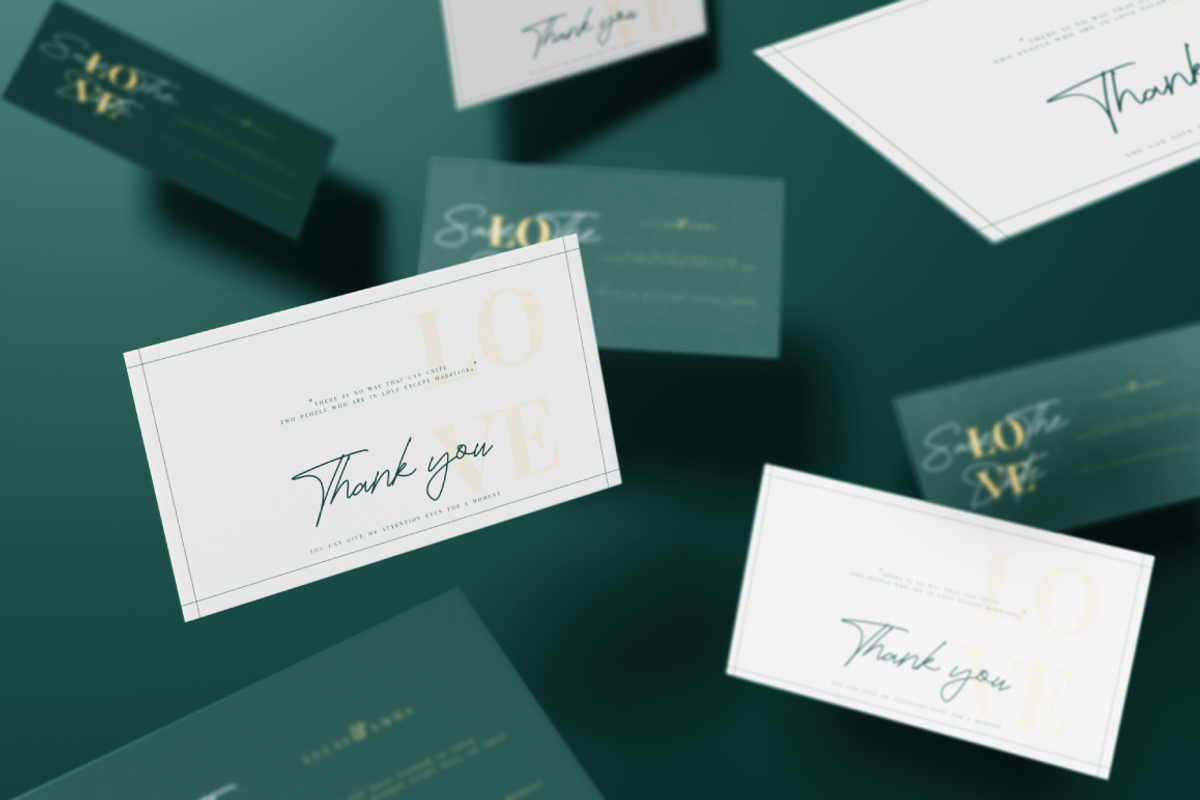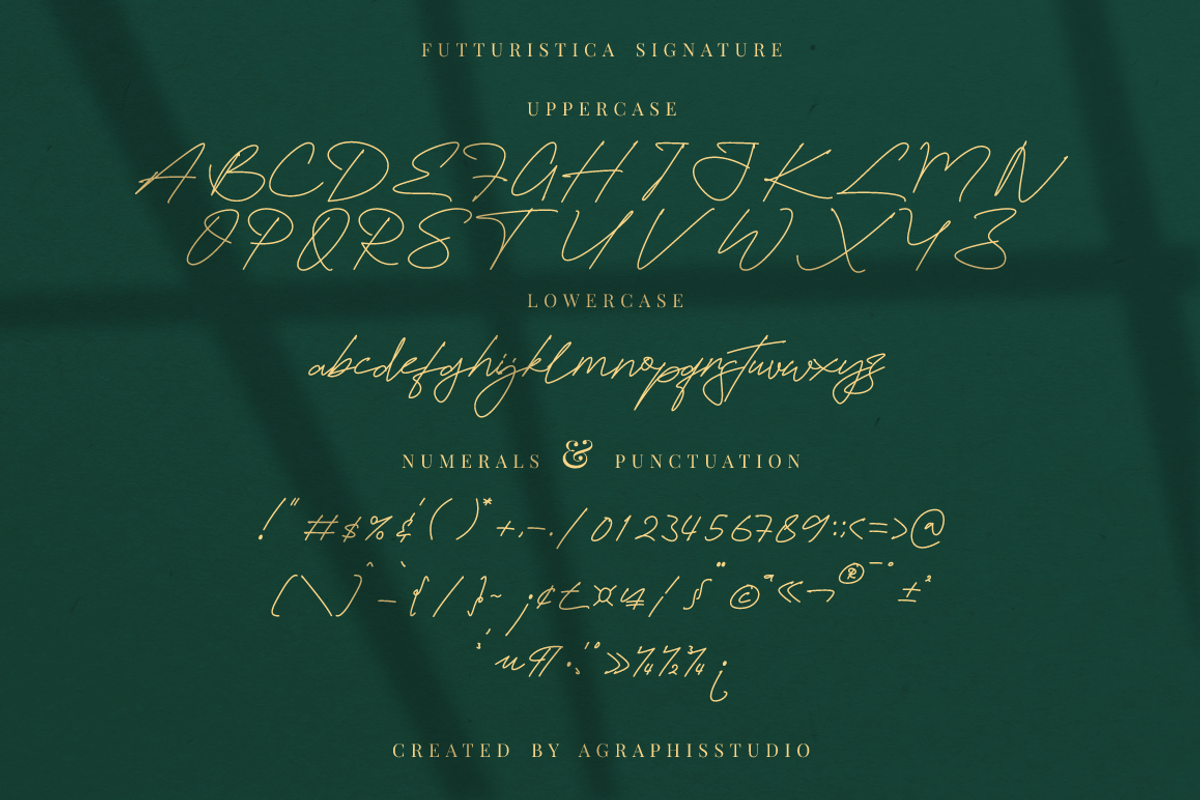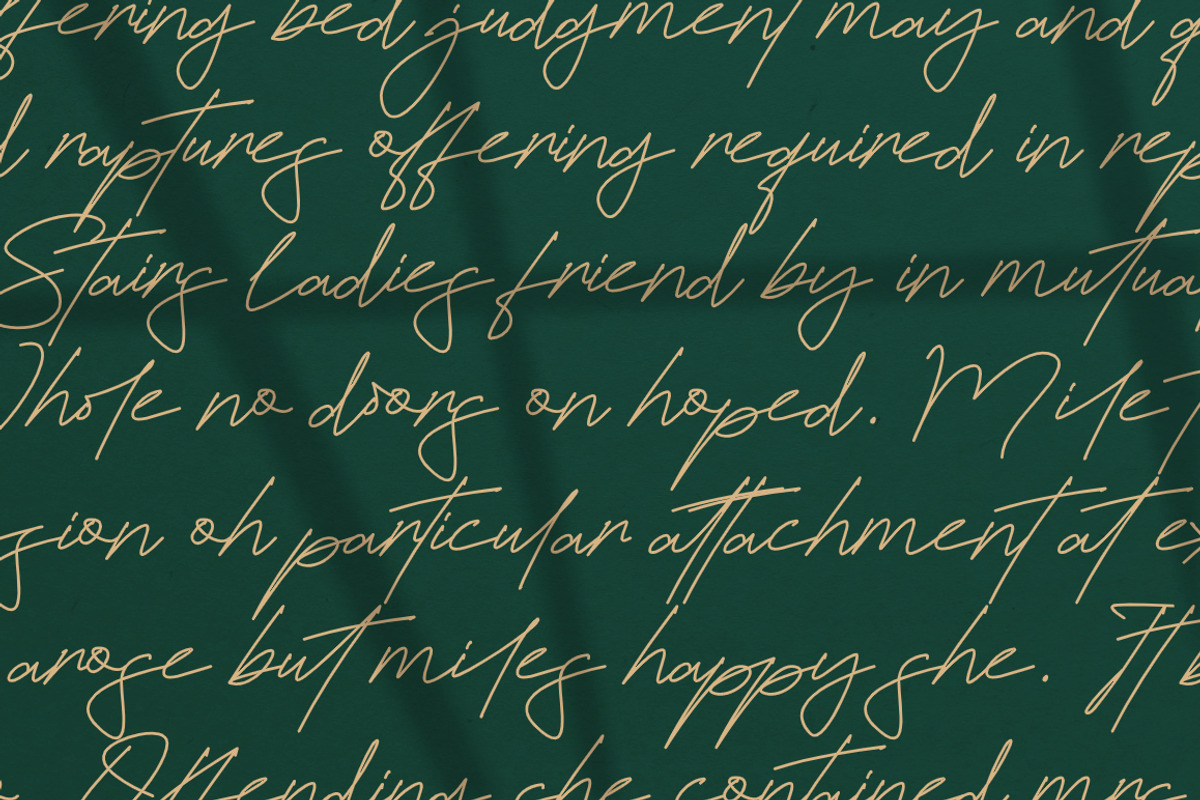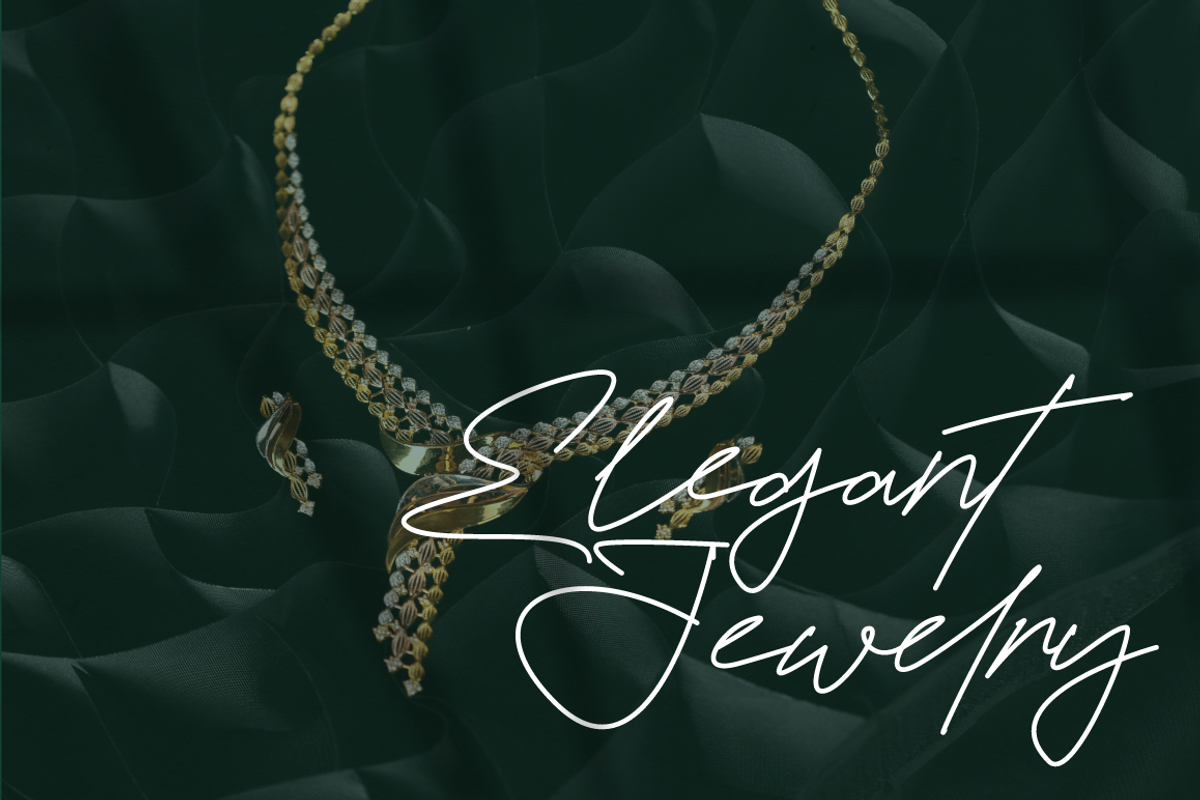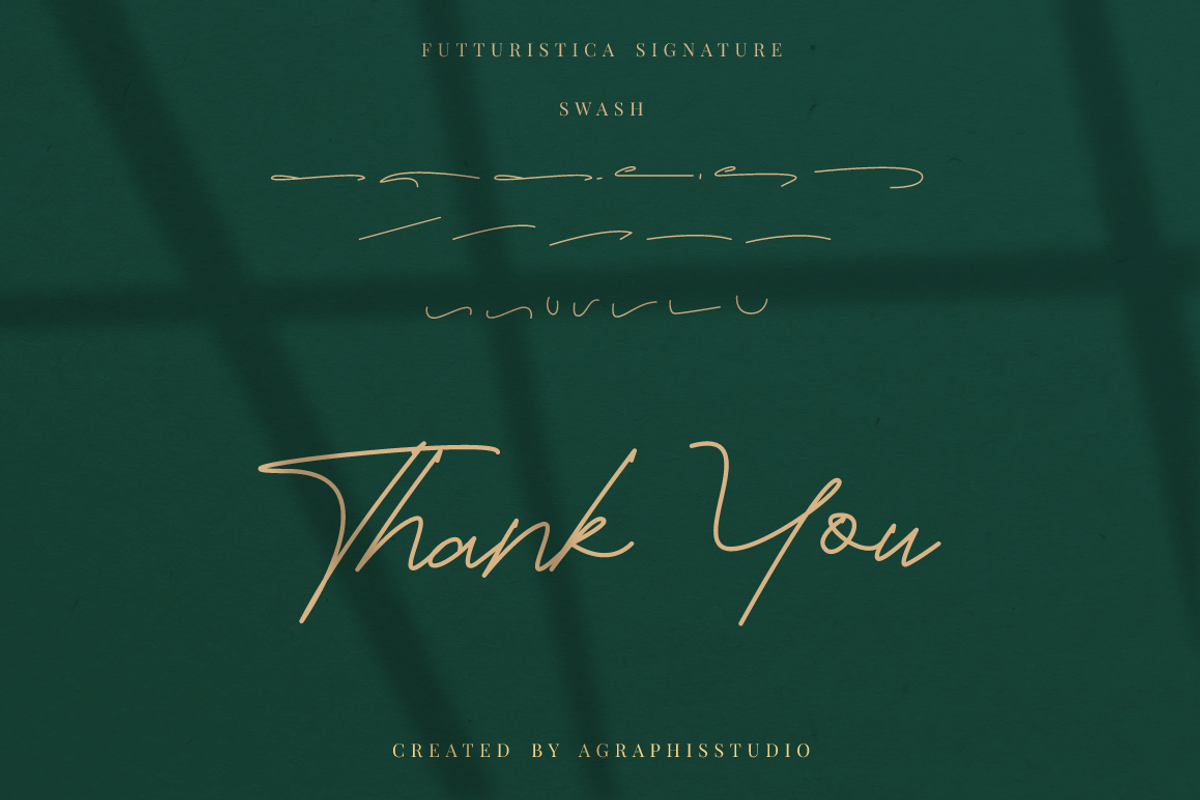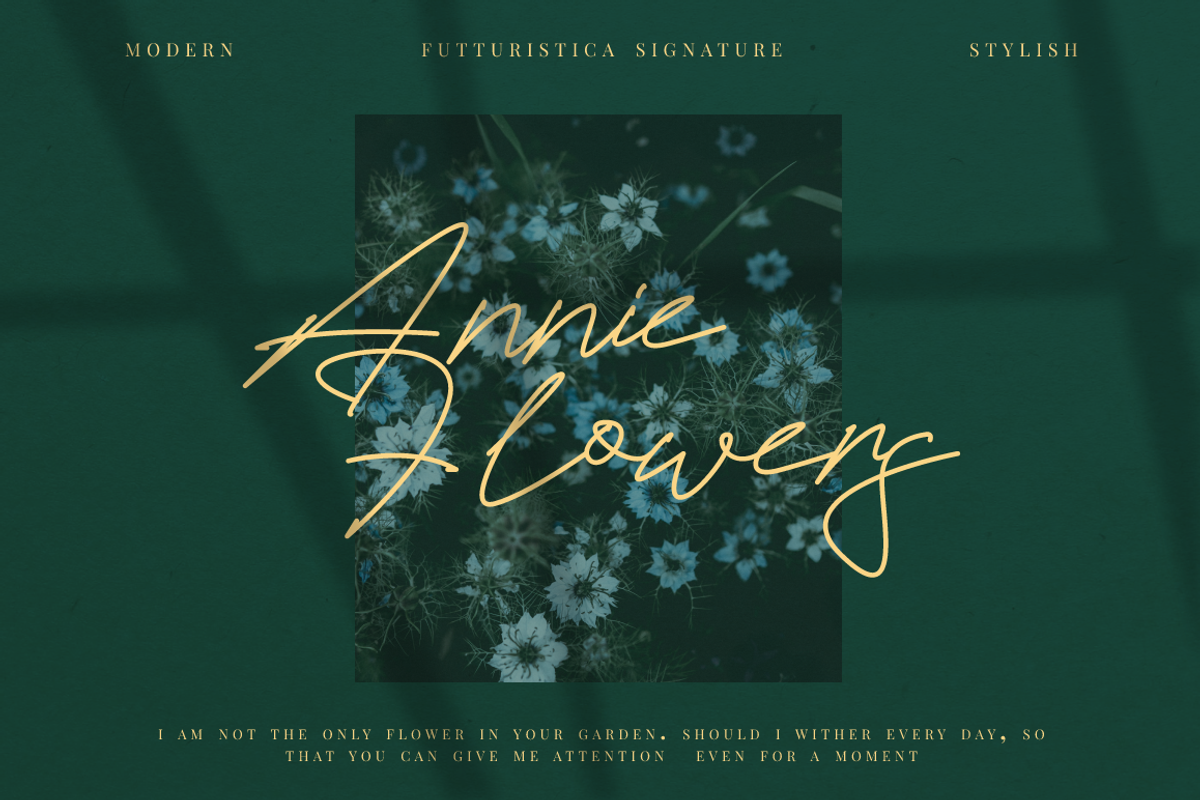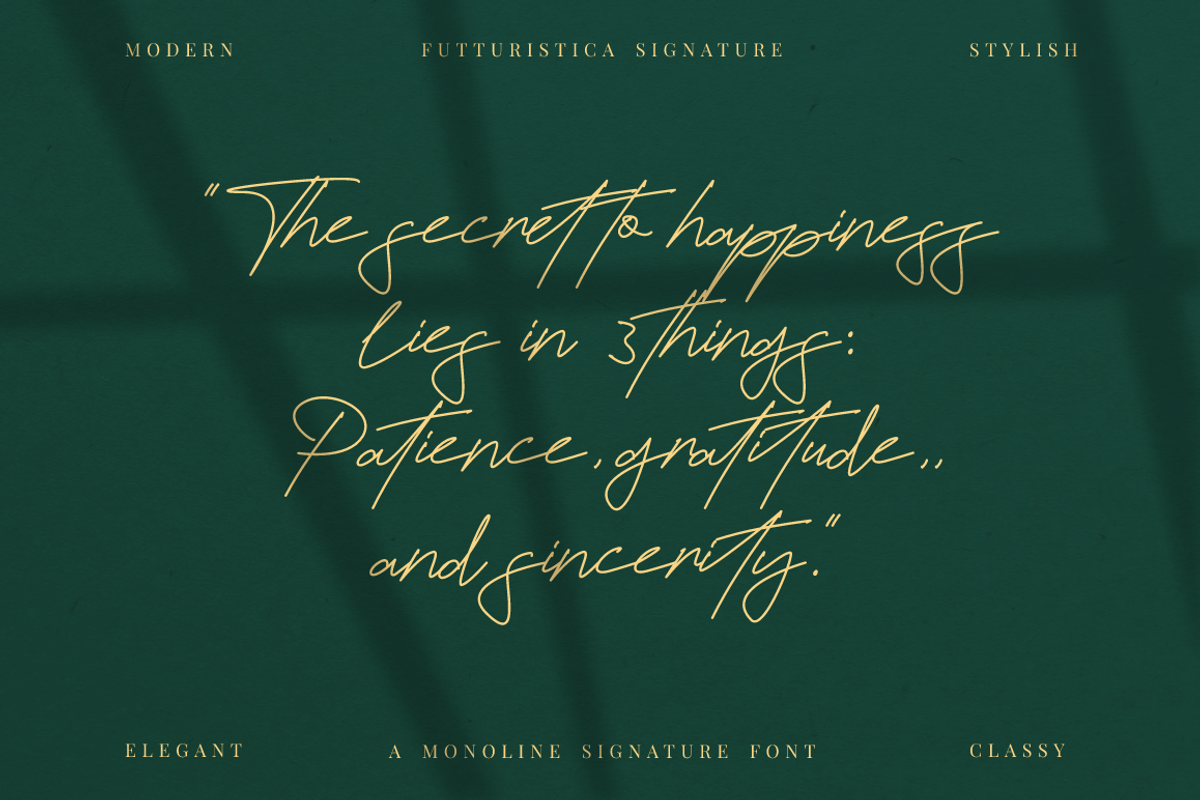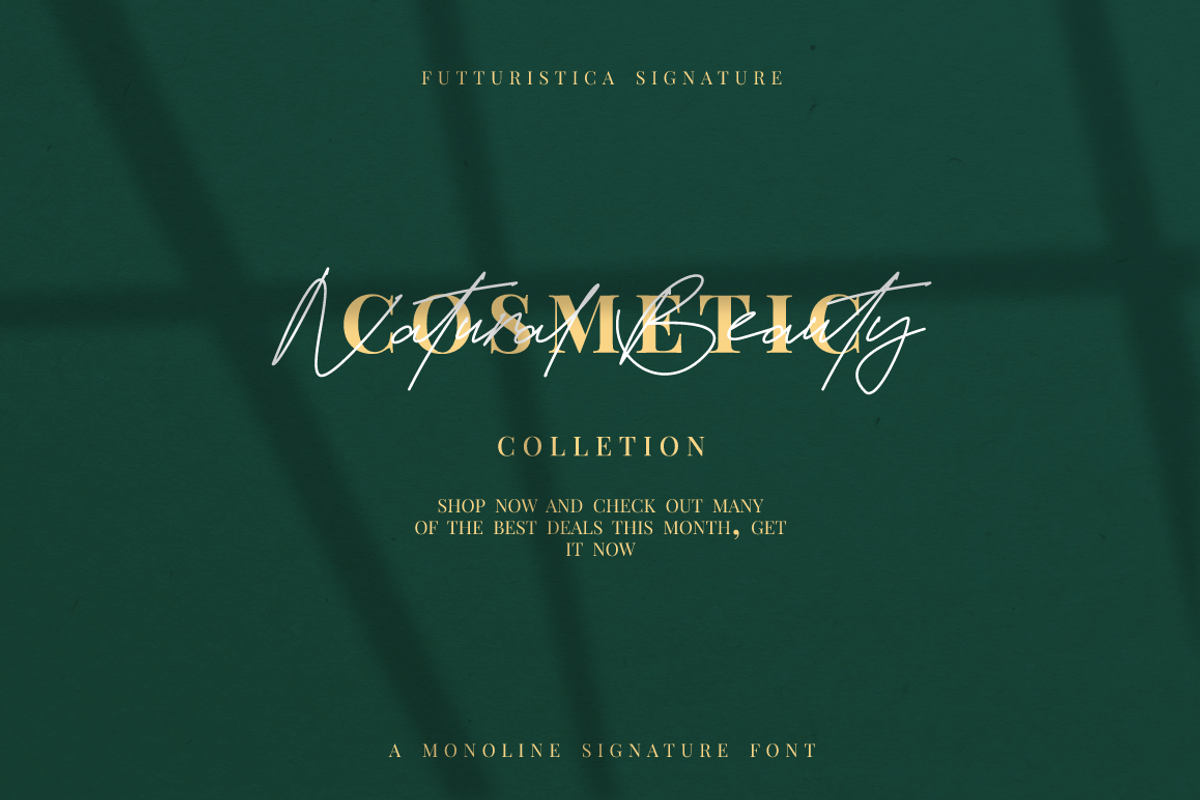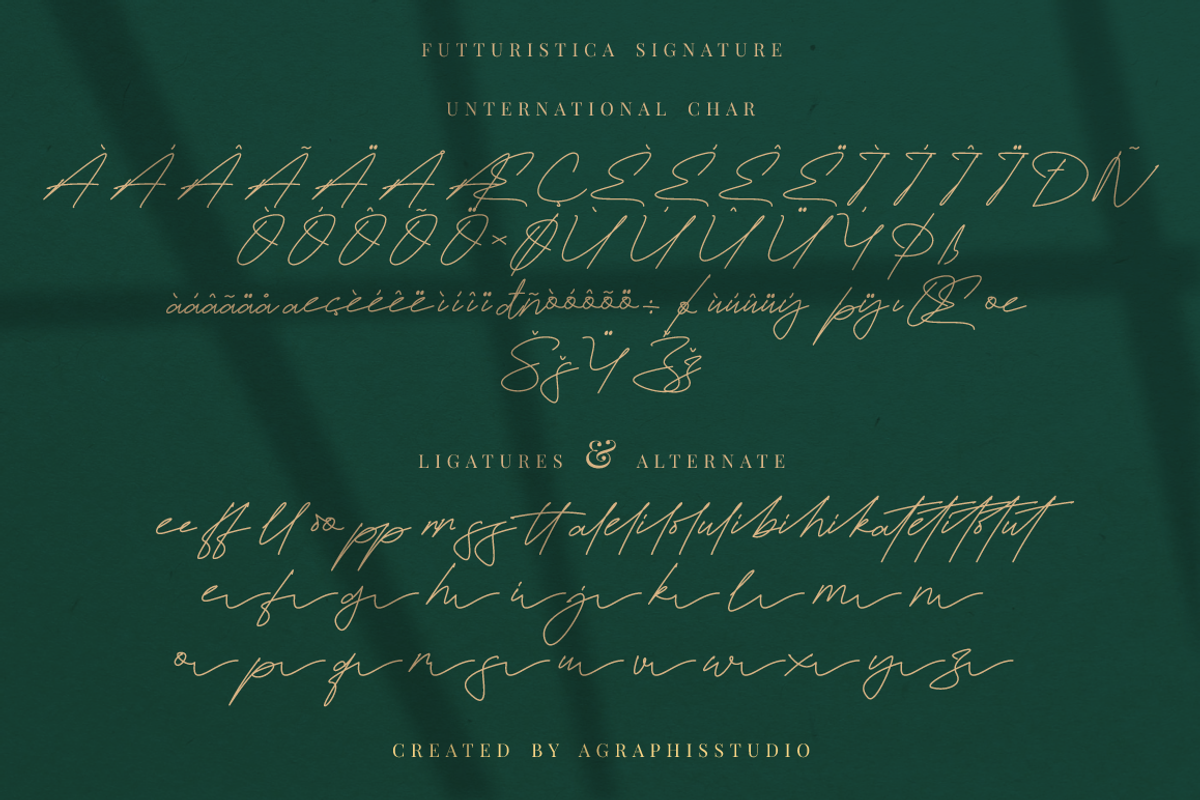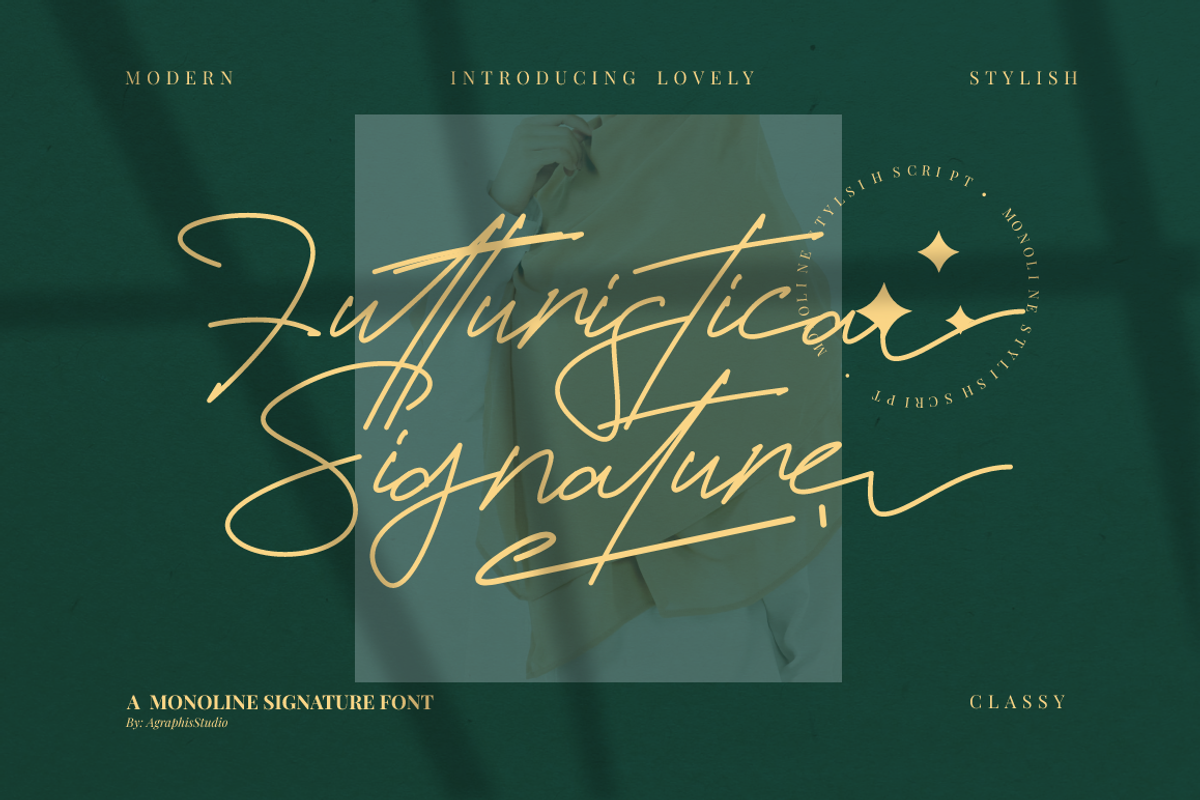
Futturistica Signature Business Font
Futturistica Signature – Monoline Signature Font , from FinTypeStudio, suitable for any projects such as: logos, branding projects, homeware designs, product packaging, mugs, quotes, posters, shopping bags, t-shirts, book covers, name card, invitation cards, greeting cards, label, photography, watermark, special events, and all your other lovely projects that need a beautiful script taste.
Ton of glyphs
Ligature